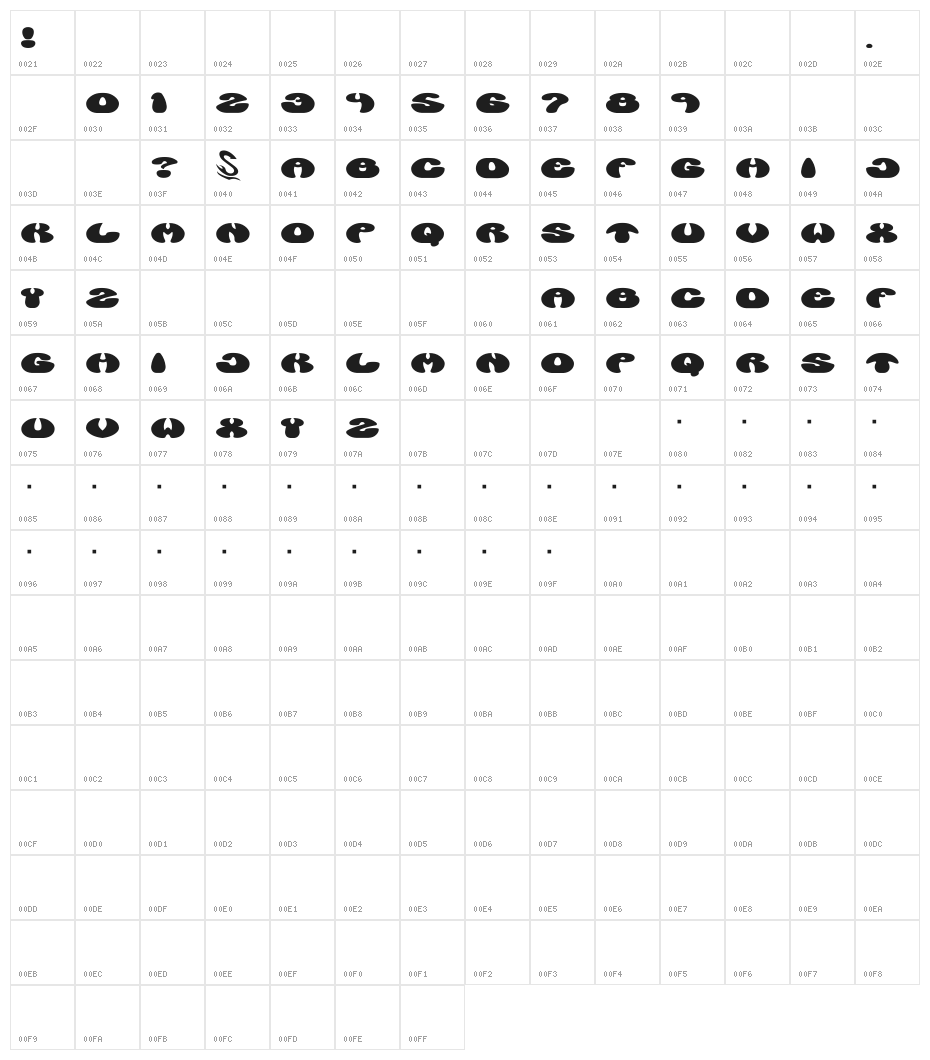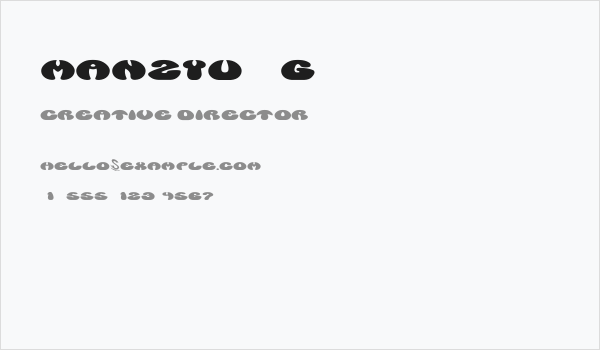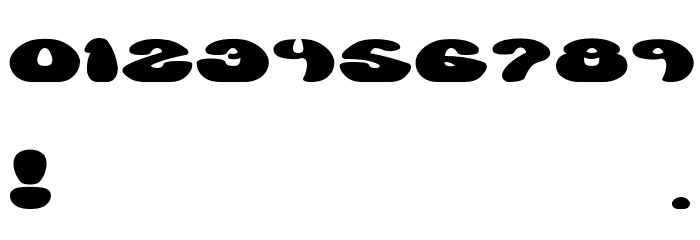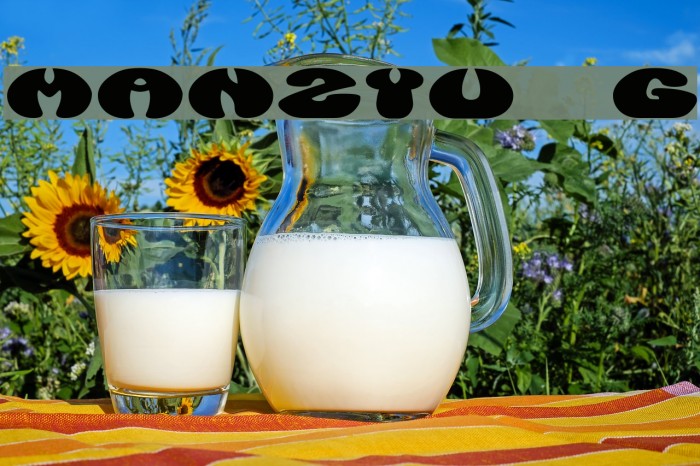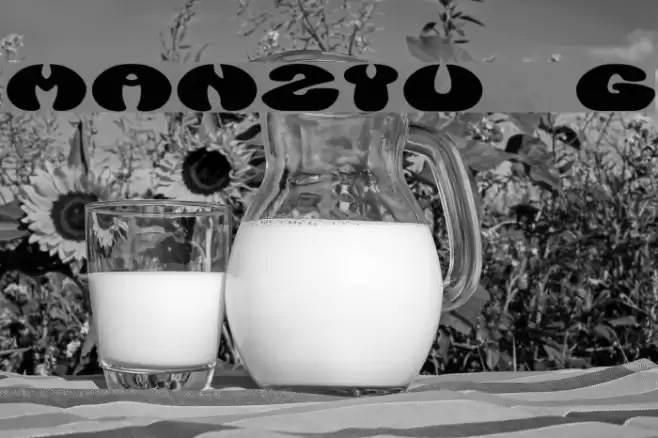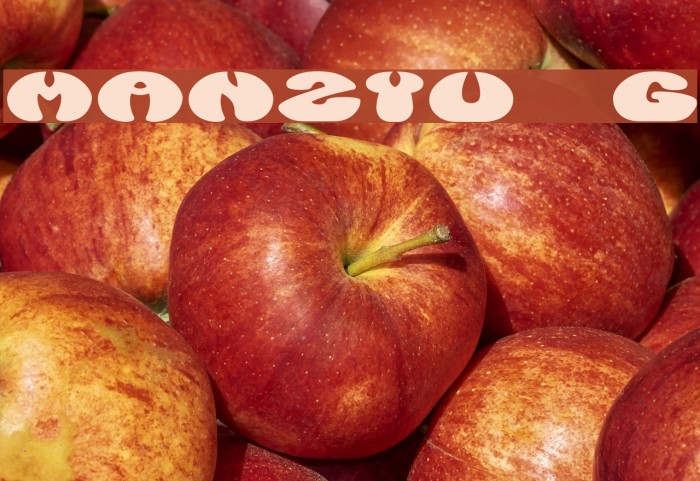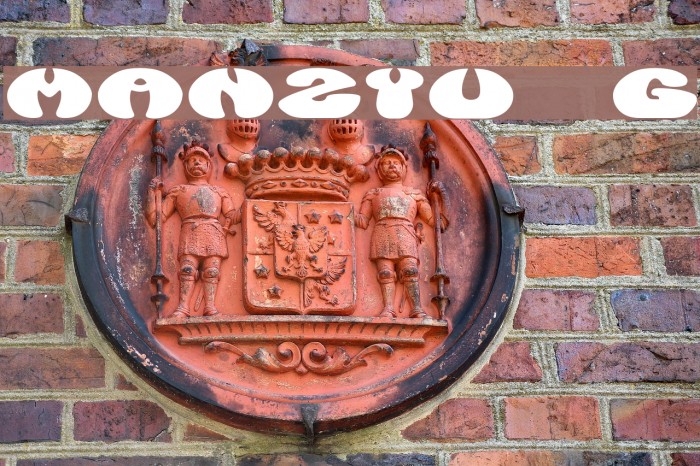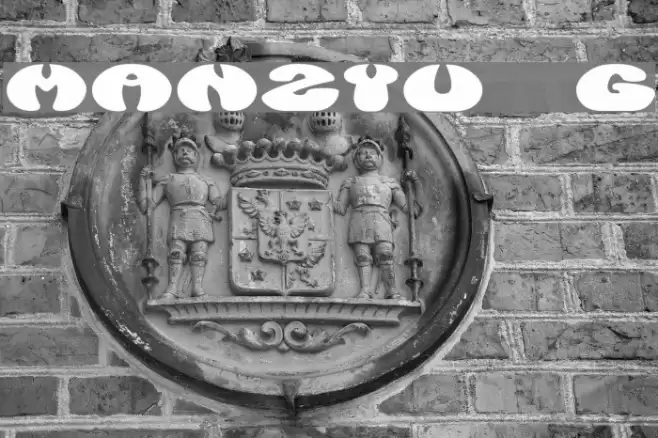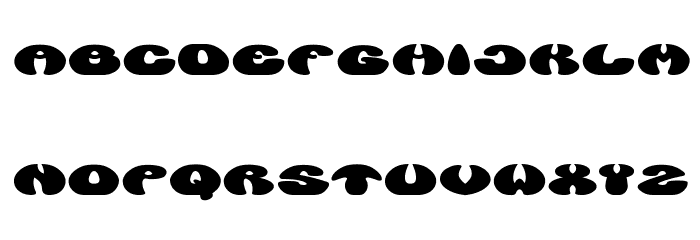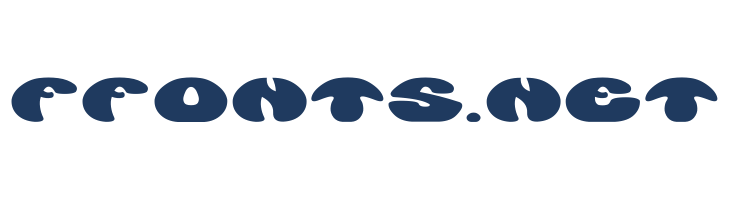
Manzyu__G Font
Manzyu__G Description
This font features a bold, rounded design with a playful and modern aesthetic. The characters are heavily stylized with thick strokes and a unique, bubble-like appearance. Each letter and number is distinct, with a consistent weight and width that gives the font a cohesive look. The rounded edges and smooth curves contribute to its friendly and approachable feel, making it ideal for creative and informal applications. The font's design is eye-catching and memorable, suitable for projects that require a strong visual impact.
| Proposed Projects | Ideal for branding, posters, children's books, and playful graphic design projects. |